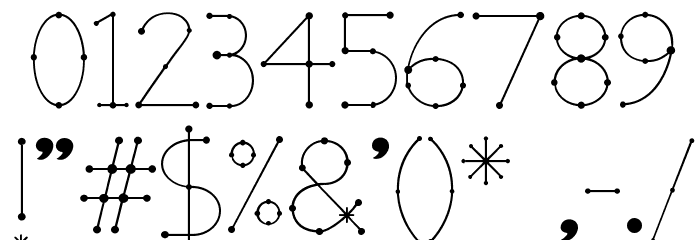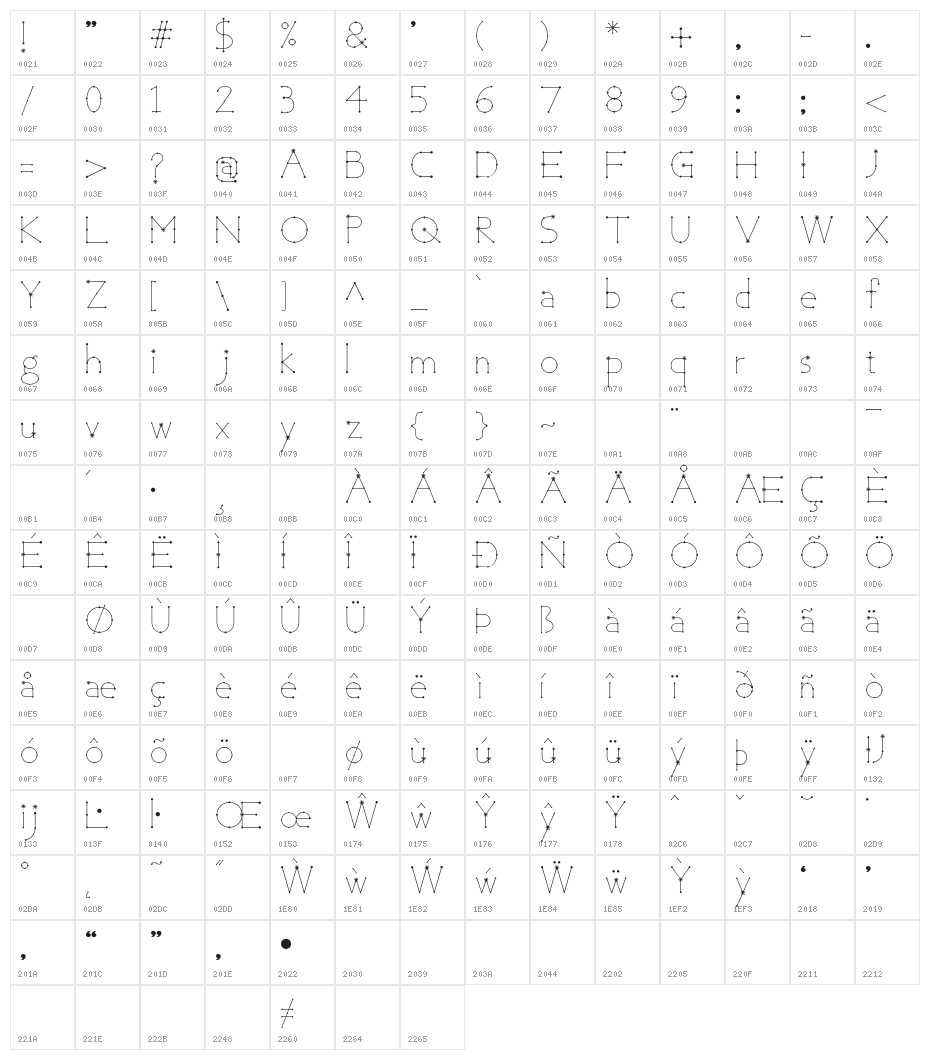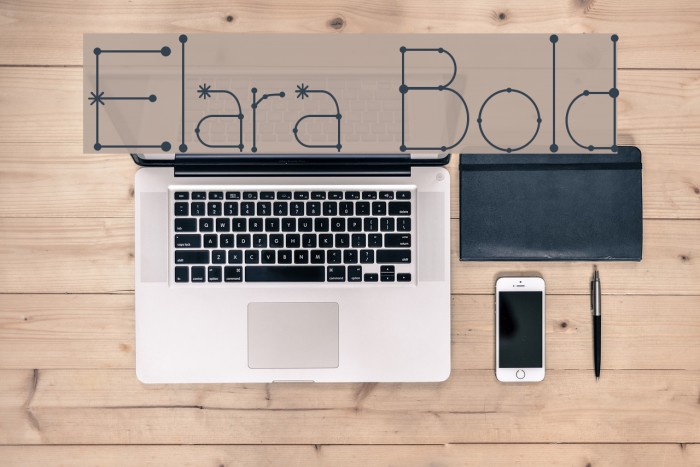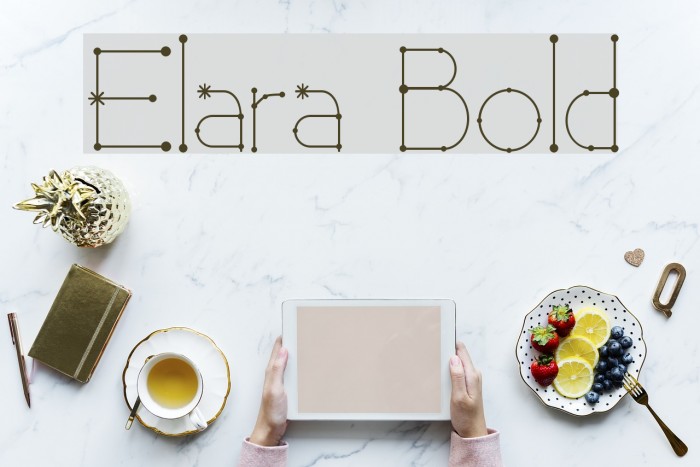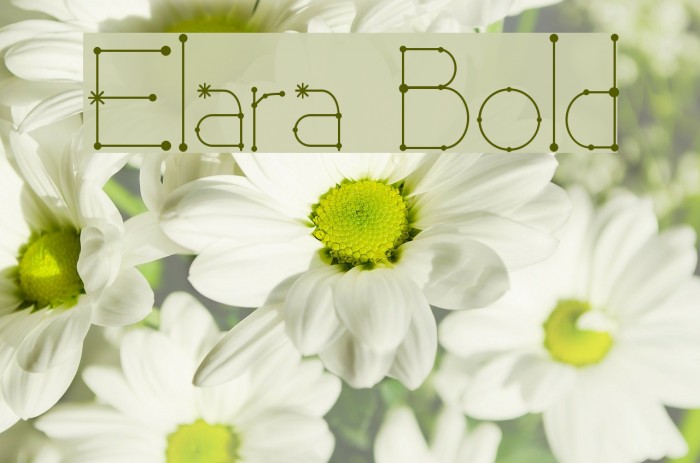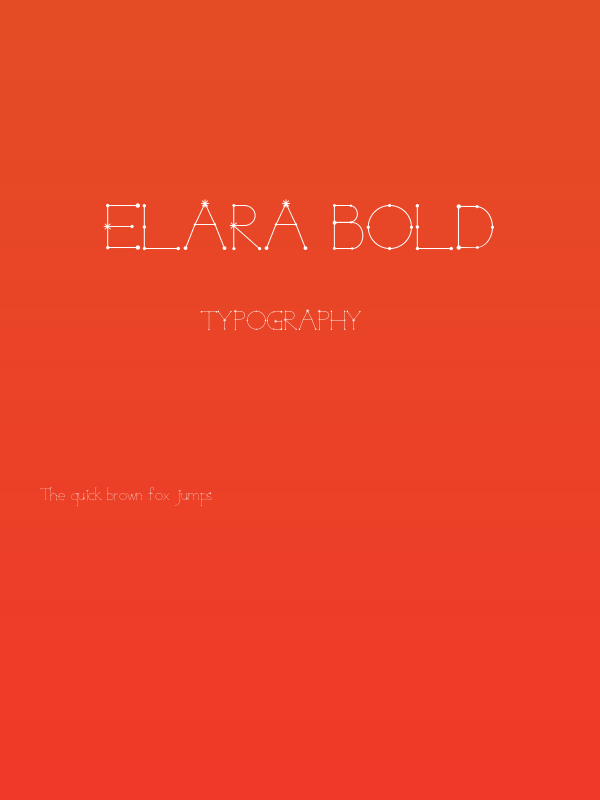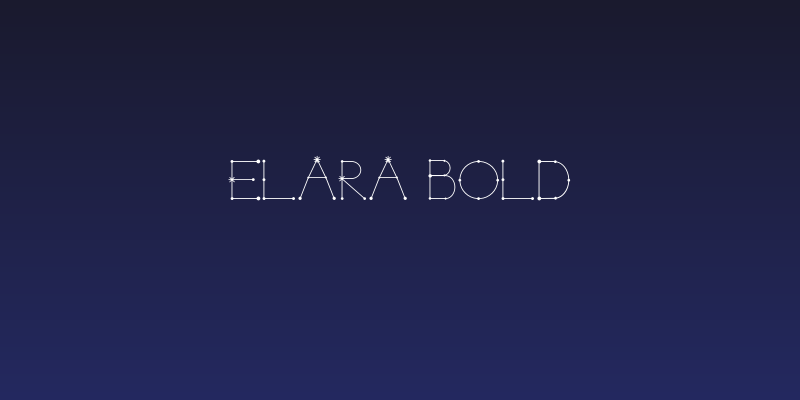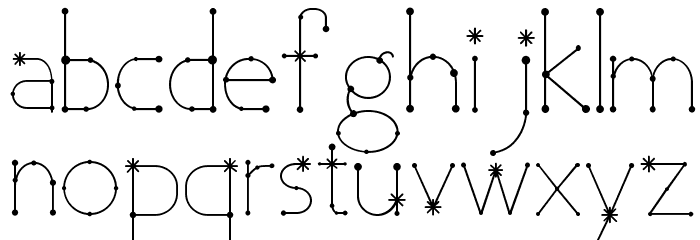
Elara Bold Font
Elara Bold Description
This font features a unique and playful design, characterized by its use of dots and connecting lines to form each letter and number. The uppercase and lowercase letters maintain a consistent style, with a whimsical touch that resembles a constellation or a connect-the-dots puzzle. The special characters follow the same design principle, adding a cohesive look to the entire set. The font's distinct style makes it stand out, offering a modern and artistic flair that is both eye-catching and memorable.
| Proposed Projects | Ideal for creative projects such as children's books, playful branding, modern art posters, and unique invitations. |